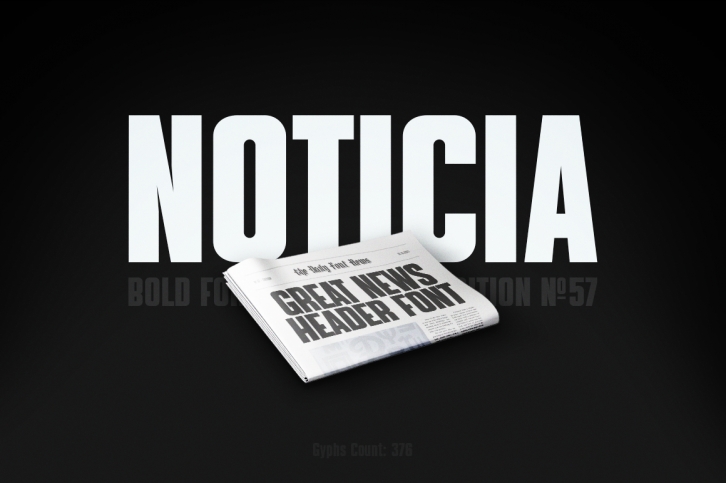
Noticia is a cool, bold and simple lettered display font. This font is ideal for writing web designs, business cards, or pretty much anything else that requires a unique touch.